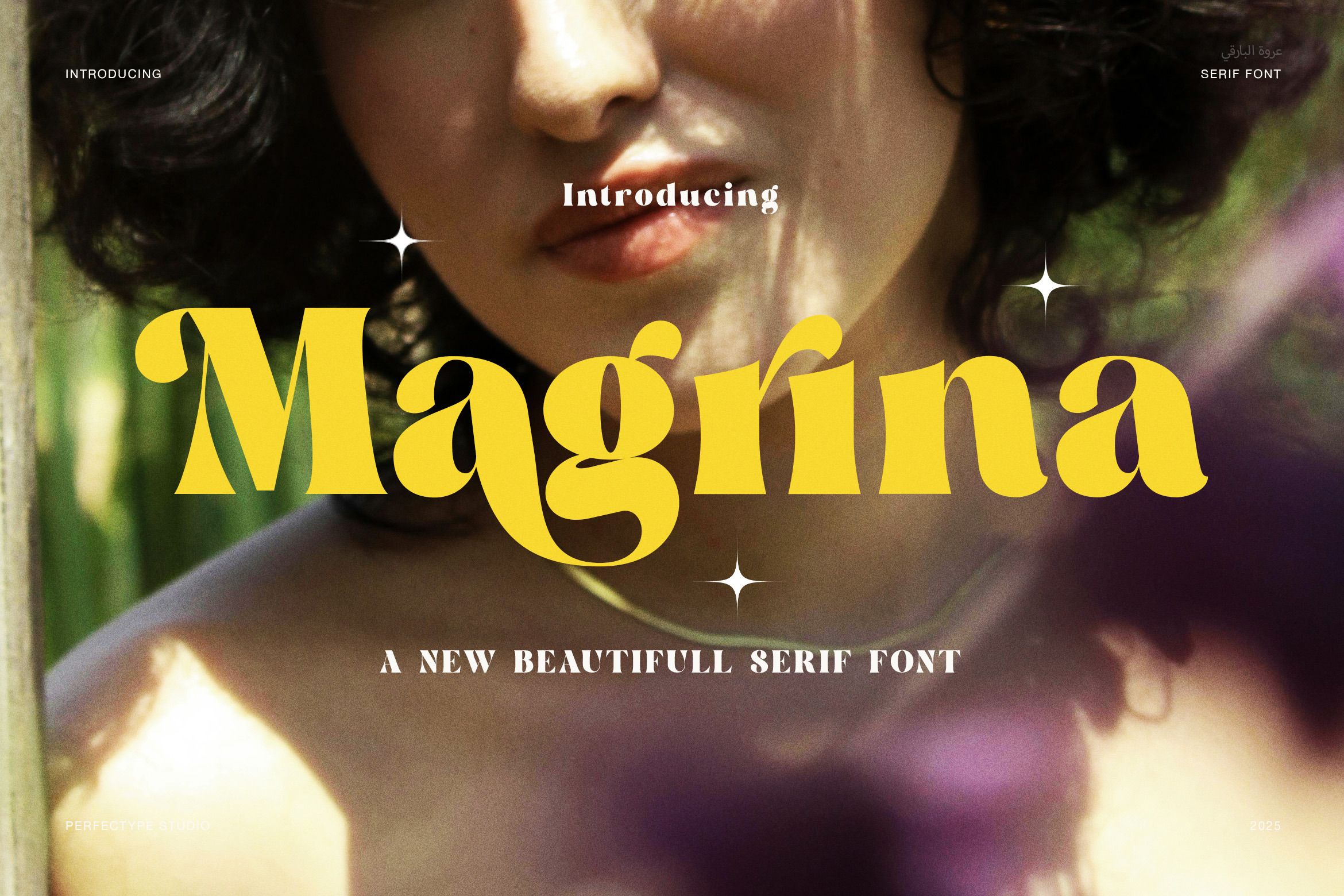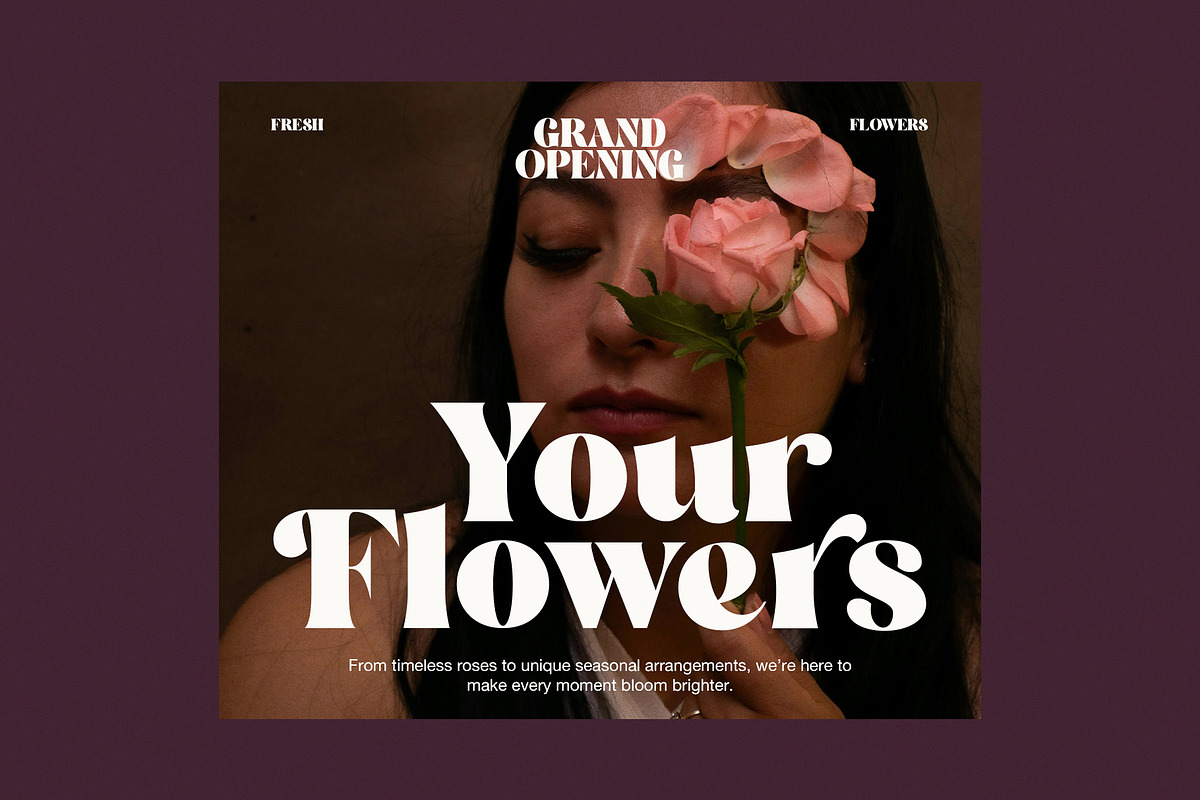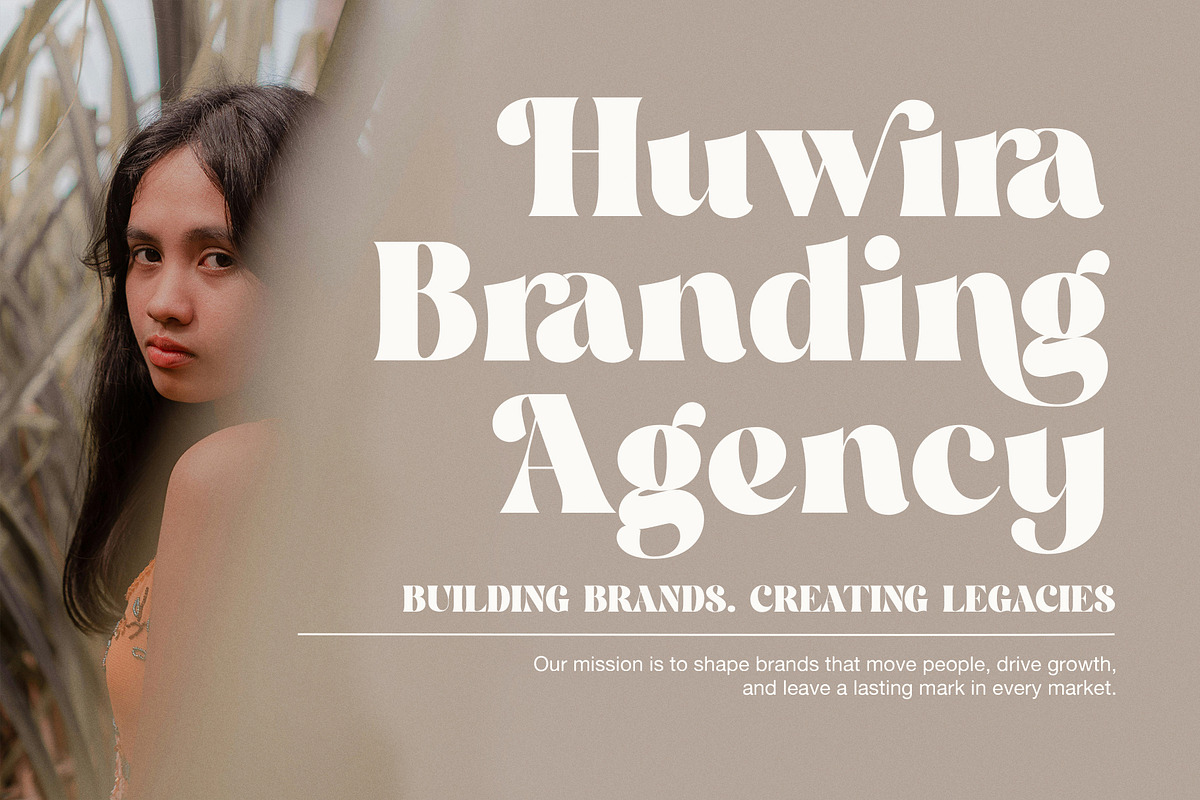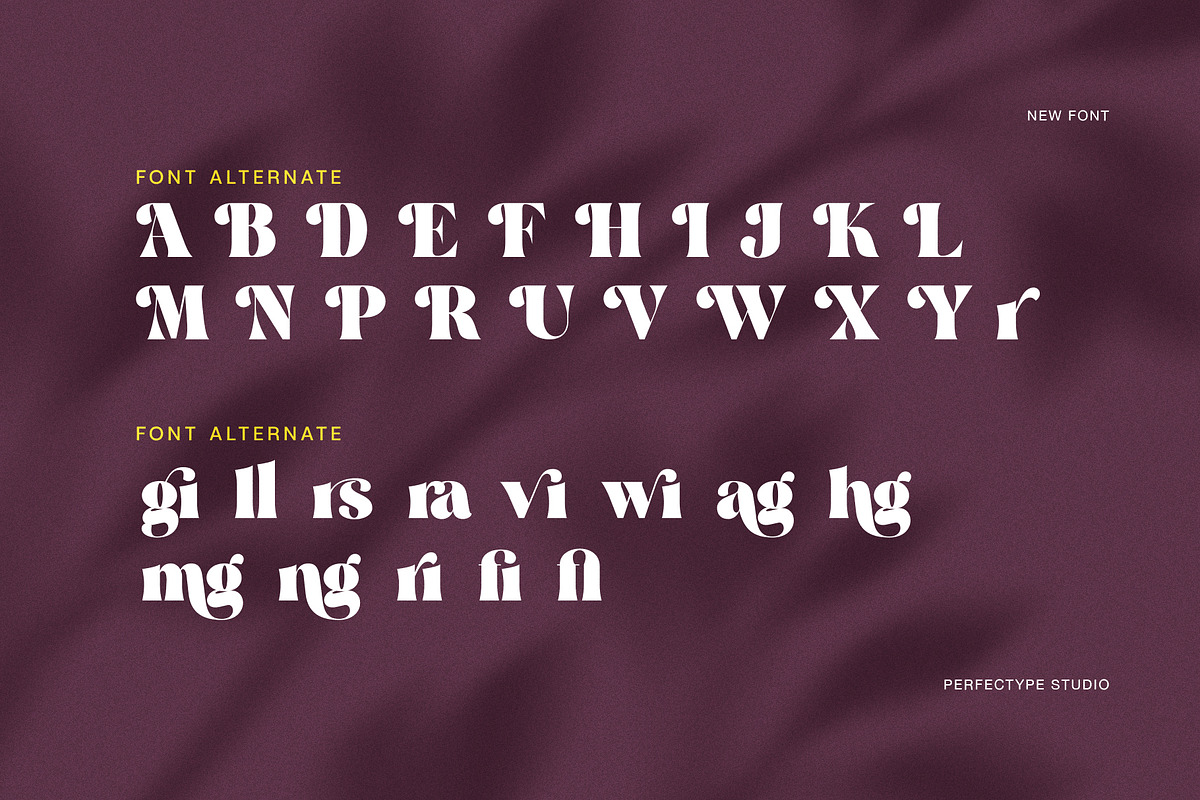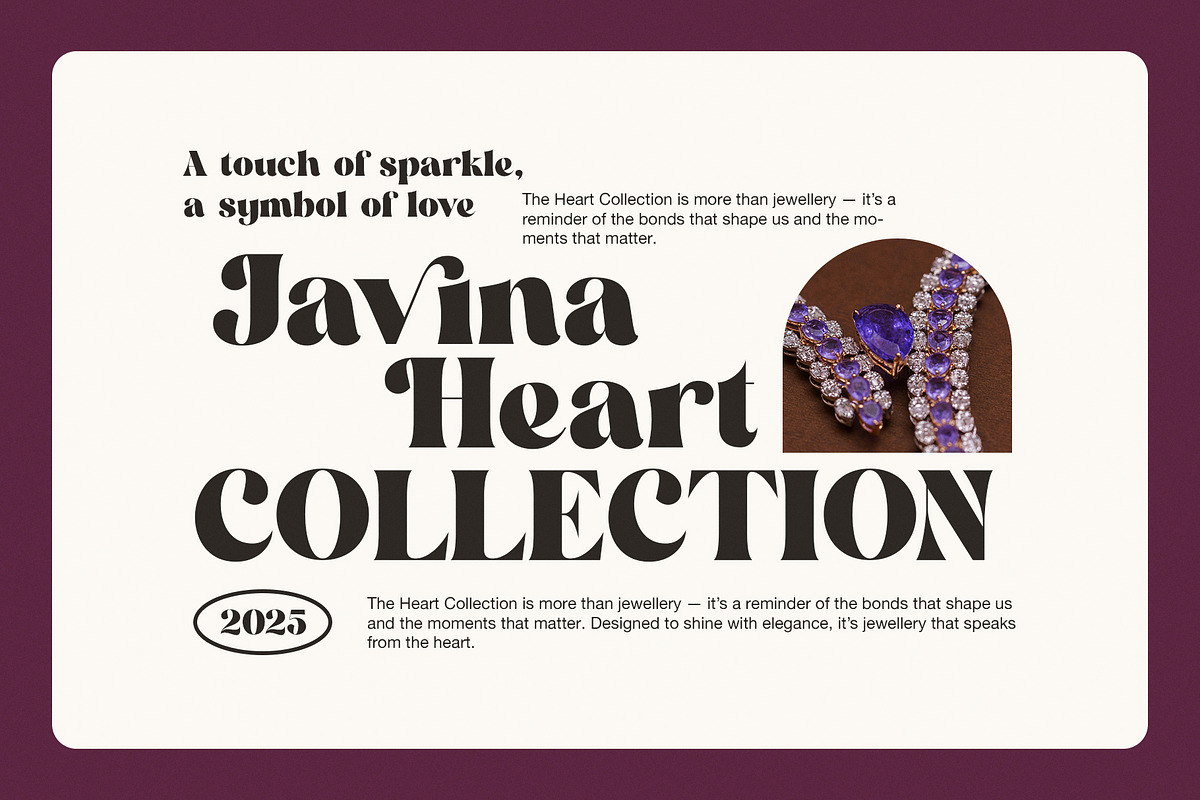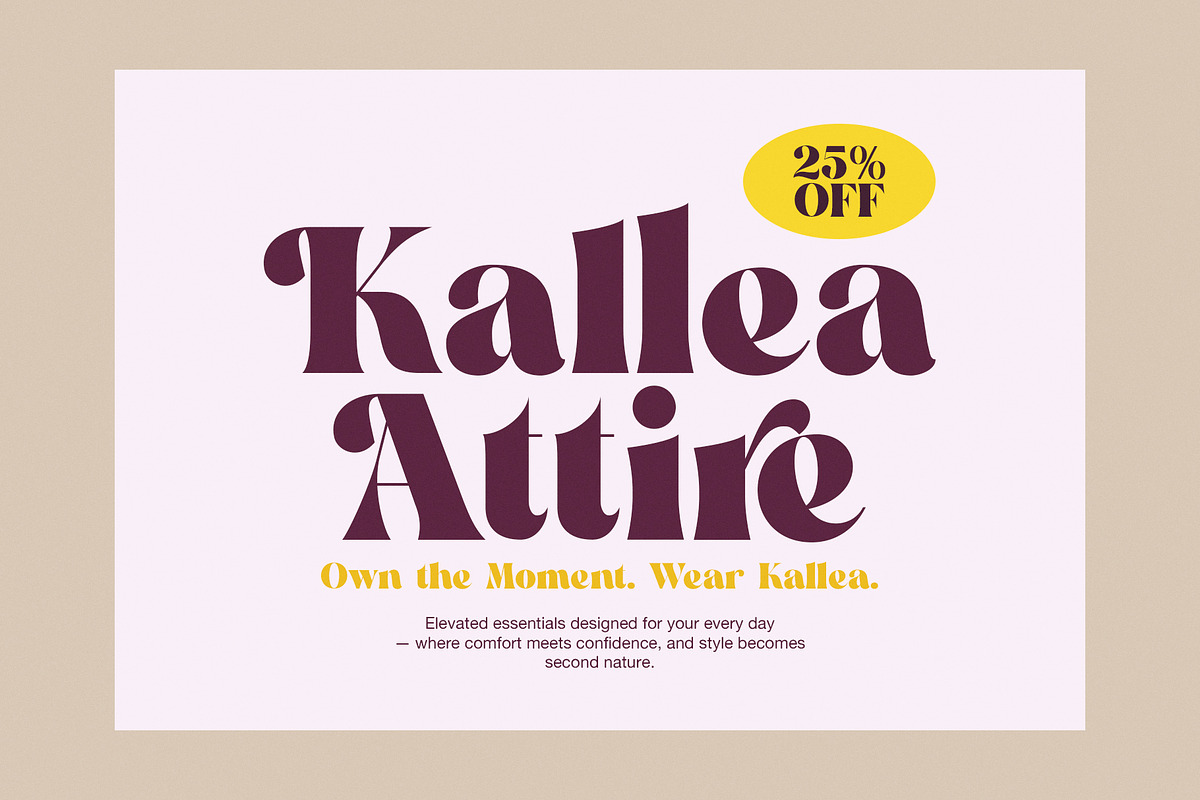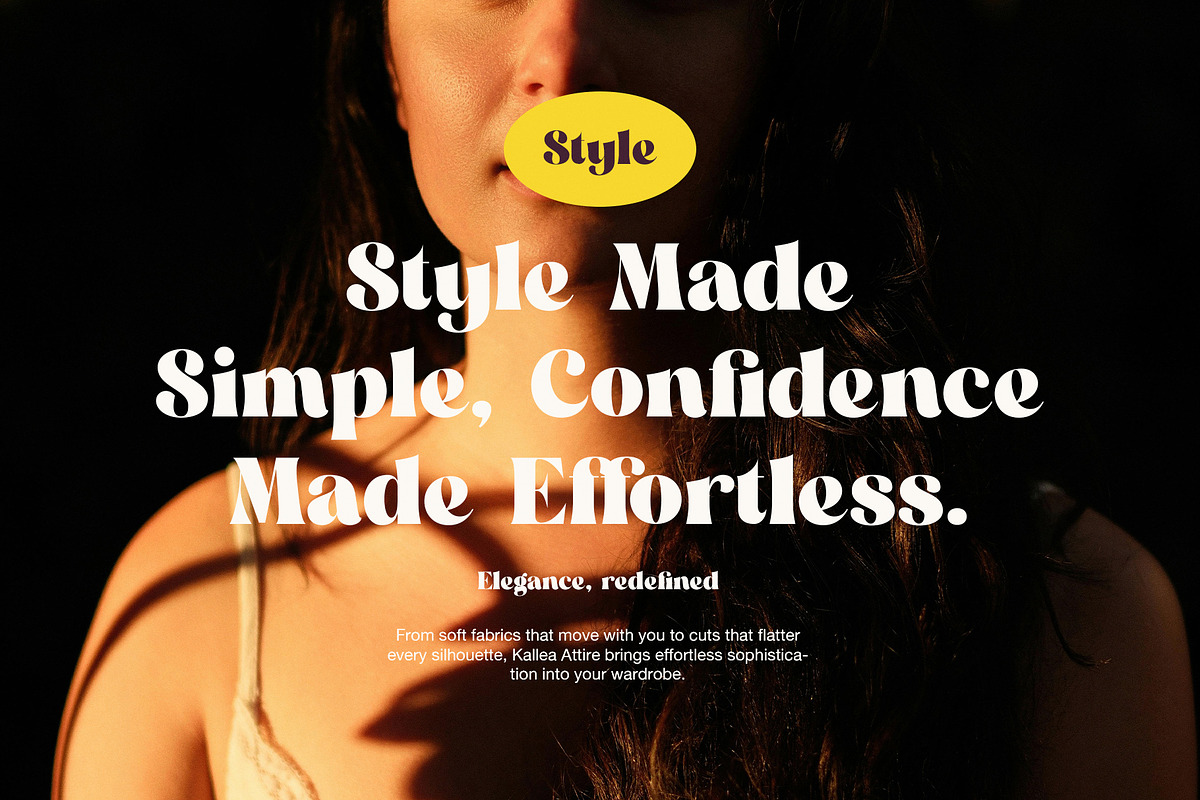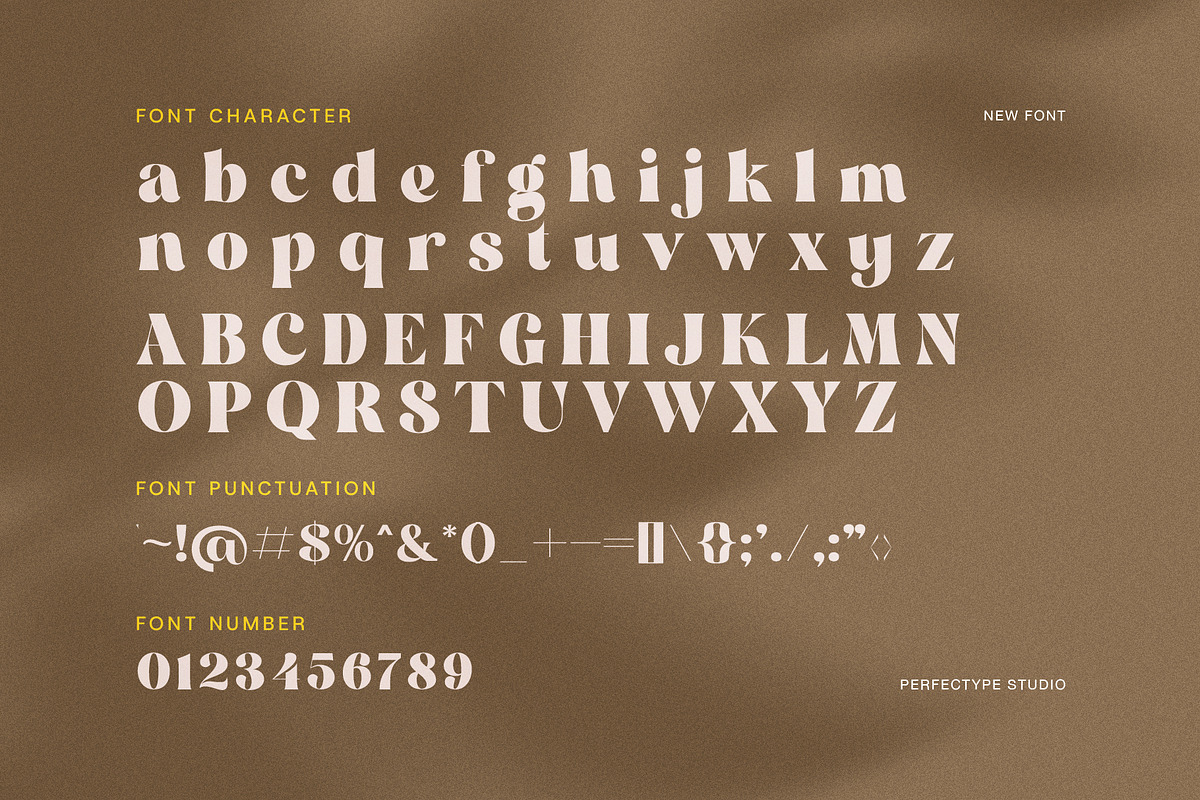
Magrina Vintage Serif Font
Magrina Vintage Serif is a beautifully crafted serif font that captures the charm and elegance of classic vintage typography. Its carefully designed shapes combine sharp serifs with smooth curves, giving each letter a distinctive retro feel while maintaining excellent readability. This font is perfect for designers seeking a timeless yet stylish look that stands out.
The style of Magrina Vintage Serif reflects a blend of tradition and sophistication. It balances boldness and delicacy through its high-contrast strokes, making it suitable for headlines, logos, packaging, branding, and editorial projects. Its vintage appeal brings warmth and personality to any design, making it ideal for fashion labels, coffee shops, boutique stores, and wedding invitations.
In terms of usage, Magrina Vintage Serif adapts well to both print and digital environments. Whether you’re designing a classic magazine cover or a stylish website header, this font delivers strong visual impact without compromising clarity. Additionally, it pairs seamlessly with sans serif fonts or script styles, allowing you to create dynamic and balanced compositions.
Magrina Vintage Serif also supports multiple languages, ensuring accessibility for global projects. The careful spacing and proportional letterforms help maintain readability across different sizes and mediums.
Key benefits include:
Classic vintage serif design with a modern touch
High contrast strokes for bold yet elegant visuals
Ideal for branding, packaging, and editorial use
Perfect for wedding invitations and retro-themed projects
Easily pairs with other font styles
Multilingual support for diverse applications
Magrina Vintage Serif is more than just a font; it’s a statement. It helps you evoke nostalgia and class while maintaining a fresh, professional look. By choosing this font, you ensure your design tells a memorable story with style and grace.